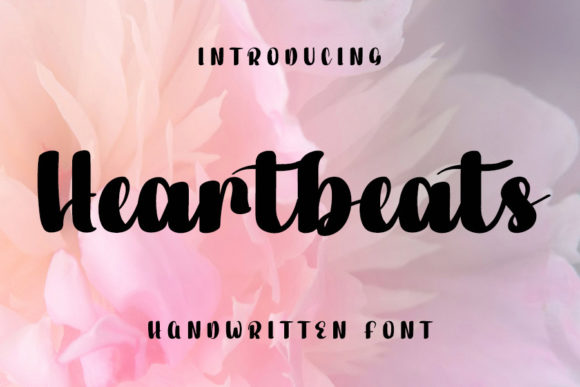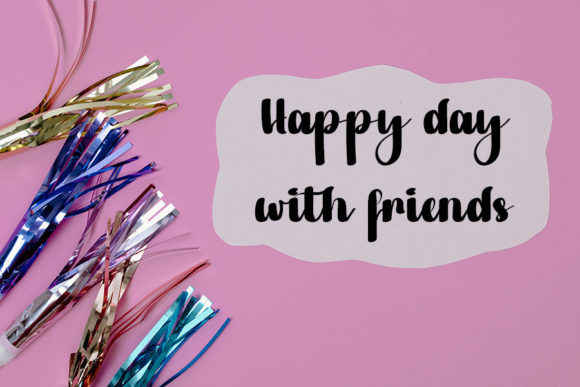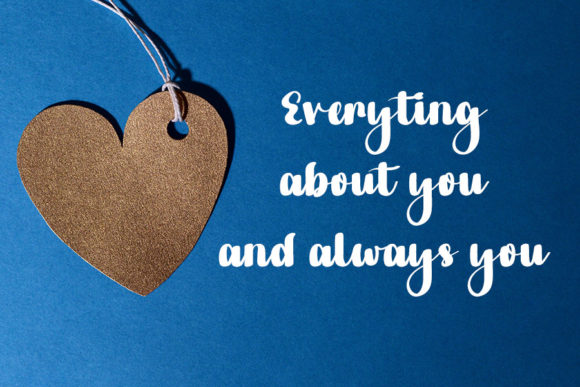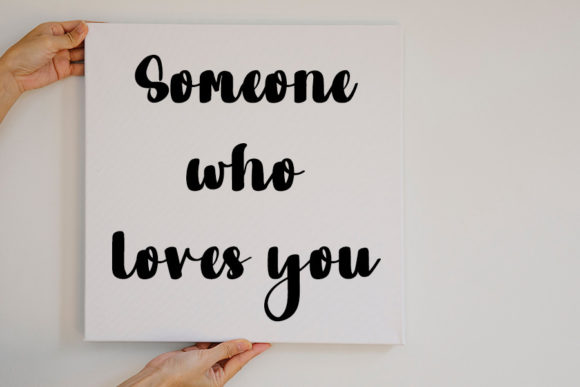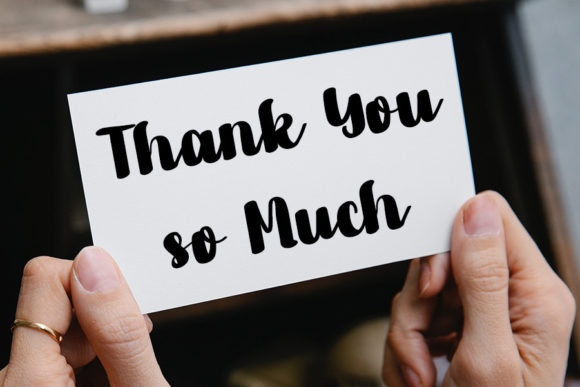
About Heartbeats Font
Heartbeats is a stylish handwritten font that effortlessly combines a contemporary atmosphere with impeccable form, drawing inspiration from timeless classic calligraphy. Meticulously crafted, this font strikes a perfect balance, being both balanced and varied. Its design is a thoughtful endeavor to bring a touch of sophistication and diversity, enhancing the aesthetic appeal of your diverse projects.
At its core, Heartbeats exudes a stylish and contemporary energy through its handwritten style. This quality not only adds a personal touch but also establishes a modern and inviting vibe. Whether applied to digital platforms or tangible materials, the font’s adaptability makes it suitable for a range of projects that demand a fresh and refined aesthetic.
The font’s roots in timeless classic calligraphy contribute to its impeccable and elegant form. Each letter is intricately shaped to enhance the overall visual appeal, offering a seamless integration of classic charm with a modern twist. This dual influence makes Heartbeats a unique and compelling choice, embodying a perfect fusion of traditional and contemporary design elements.
A standout feature of Heartbeats is its carefully balanced and varied appearance. The strokes and curves are thoughtfully arranged, creating a dynamic visual presentation that captures attention without overwhelming the viewer. This design decision ensures the font’s versatility, allowing it to enhance the beauty of a wide array of projects, from branding and logos to creative writing and more.
Whether you’re working on a vibrant digital interface or crafting tangible designs, Heartbeats injects a level of sophistication that complements the demands of modern design. Its stylish handwritten style not only offers visual appeal but also provides a fresh and trendy take on classic calligraphy for contemporary design needs.
In summary, Heartbeats stands out as a stylish handwritten font with a contemporary atmosphere and impeccable form. Its balanced and varied appearance, inspired by timeless classic calligraphy, positions it as a versatile and appealing choice for projects seeking a touch of sophistication. Let Heartbeats enhance the beauty of your designs, as it effortlessly elevates the visual allure of your creative endeavors.